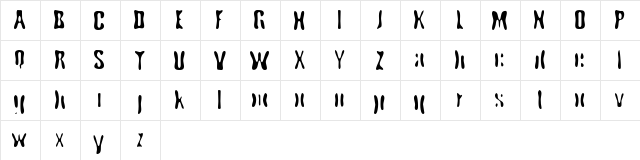
Cryptic Funkadelia Regular
Design Context for Cryptic Funkadelia Typeface
Cryptic Funkadelia trades formality for fun, with bouncy, characterful letterforms that bring warmth and energy to any project.
Font Pairing: Pairs well with a rounded or humanist sans for body copy, maintaining the friendly tone without relying on Cryptic Funkadelia to carry extended reading.
Pro Tip: Avoid using Cryptic Funkadelia for long passages of text — it works best for headlines, labels, and short calls to action.